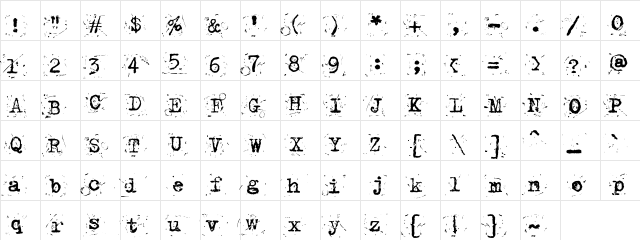
CK True Type Distressed Regular
Design Context for CK True Type Distressed Typeface
CK True Type Distressed trades polish for personality, using distressed and eroded forms to bring grit and attitude to creative work.
Suited to punk-influenced zines, underground music branding, streetwear, and raw, anti-corporate design.
Pro Tip: Pair CK True Type Distressed with intentionally raw or lo-fi design elements. Fighting against it with overly polished surroundings will undermine its personality.